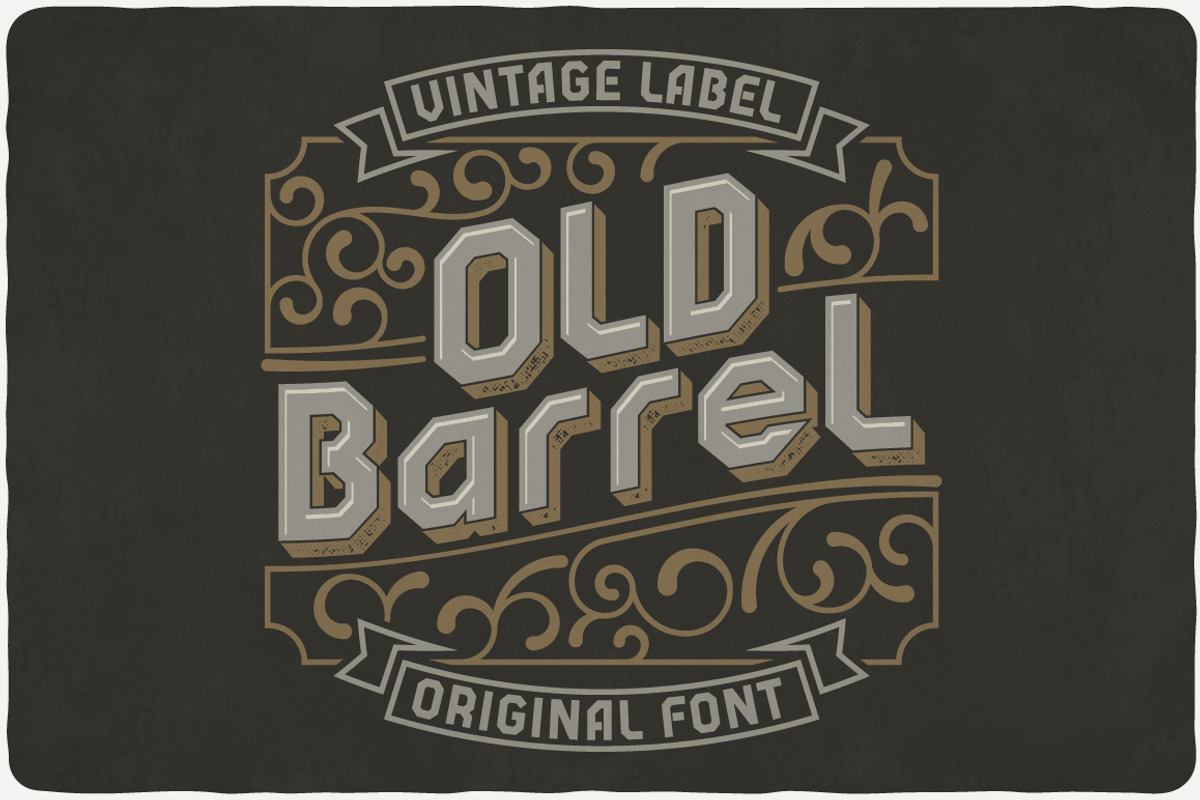
Old Barrel Typeface Free Download is a bold, rustic display typeface designed to evoke the timeless charm of vintage signage and classic Western typography. With its strong, angular letterforms and weathered texture, this font is perfect for branding, vintage-themed designs, whiskey labels, rustic packaging, and event posters.
Its antique style, with subtle distressing and rugged edges, brings a nostalgic, handcrafted feel to any project. Whether you’re designing for a rustic brand, creating a vintage logo, or working on a Western-inspired design, Old Barrel adds authenticity and character to your typography.